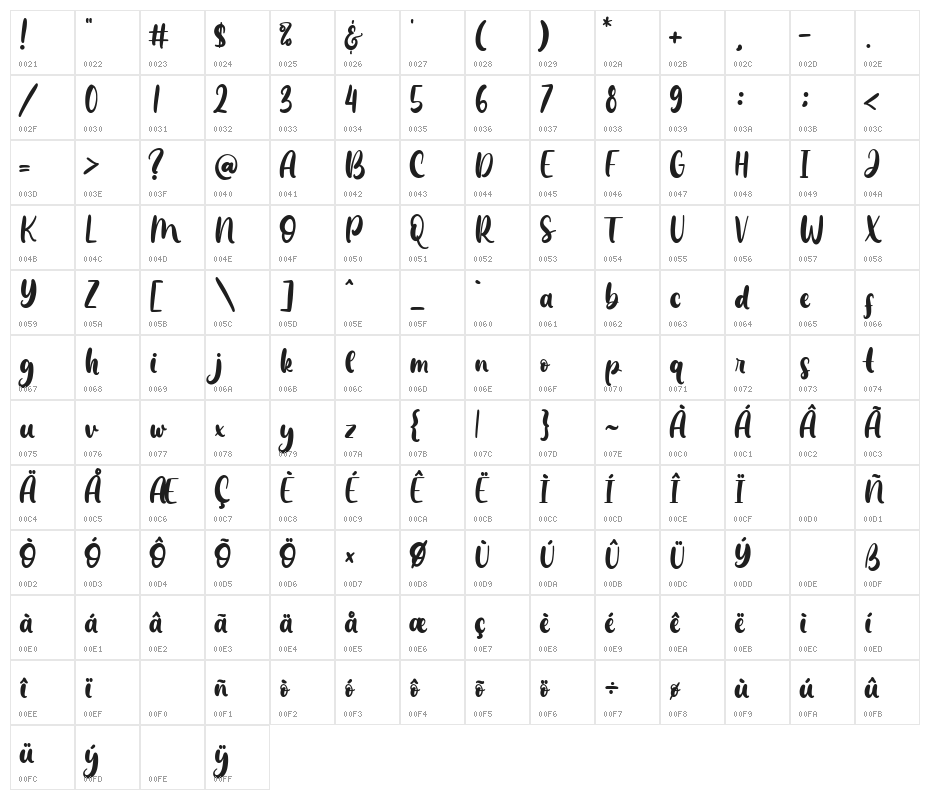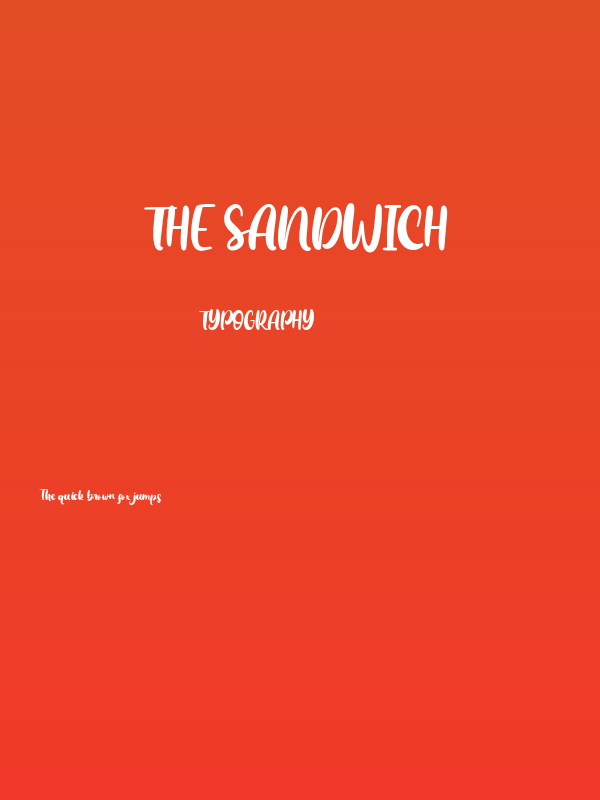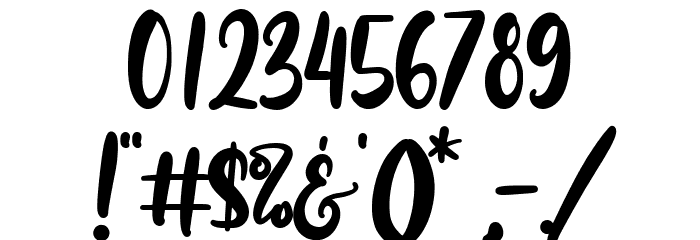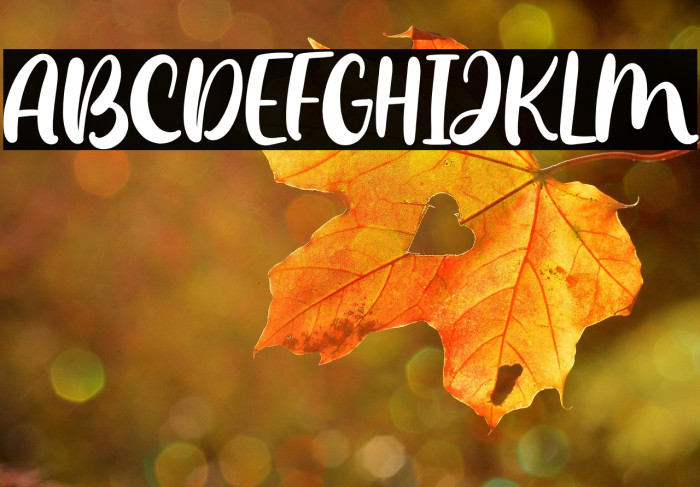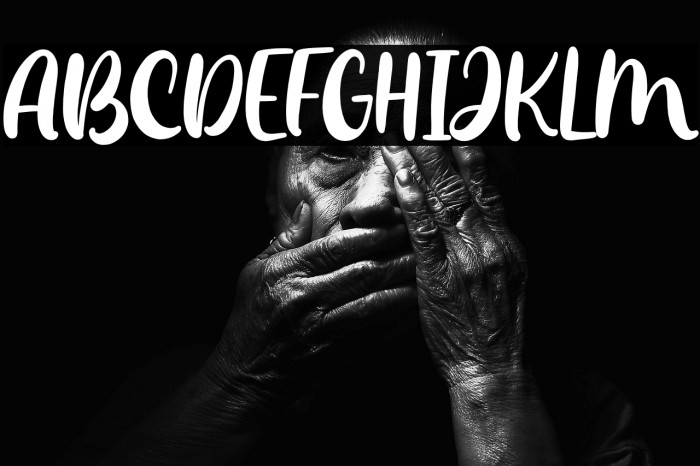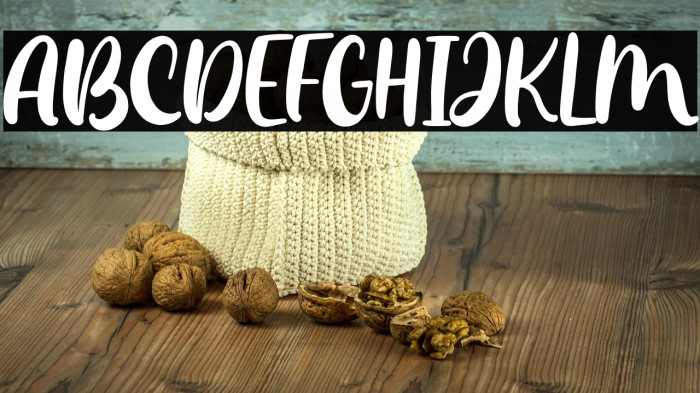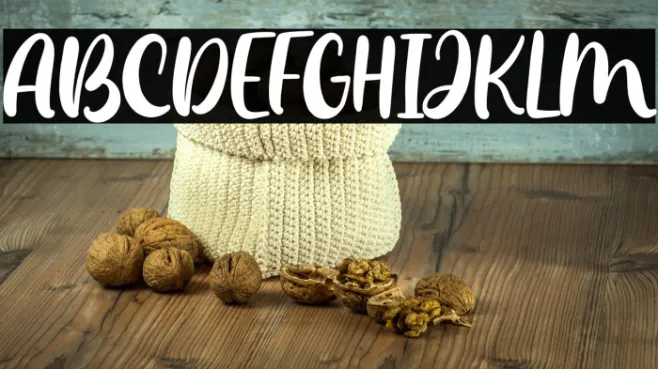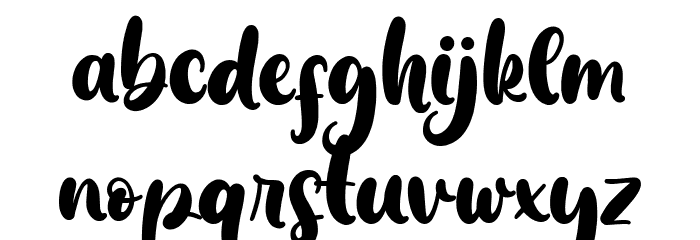
The Sandwich Font
The Sandwich Description
This font exudes a playful and energetic vibe with its bold, flowing script style. The letters are characterized by smooth, rounded edges and a consistent stroke width, giving it a harmonious and cohesive appearance. The uppercase letters are slightly taller than the lowercase, maintaining a balanced proportion. The numerals and special characters are designed to match the lively aesthetic, making them easily readable while still retaining the font's unique charm. The overall design is reminiscent of hand-lettered calligraphy, perfect for adding a personal touch to any project.
| Proposed Projects | Ideal for greeting cards, invitations, branding, and social media graphics. |